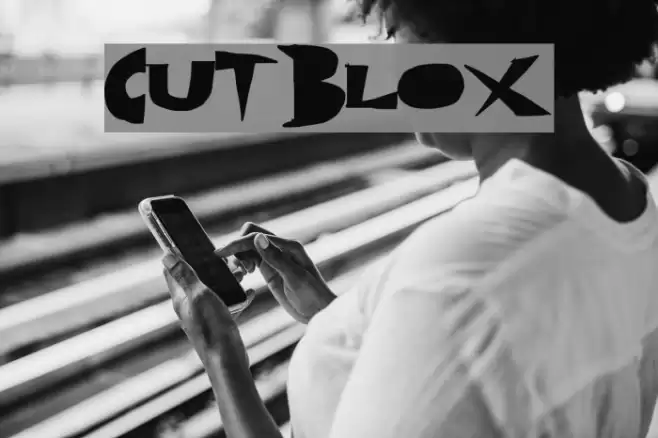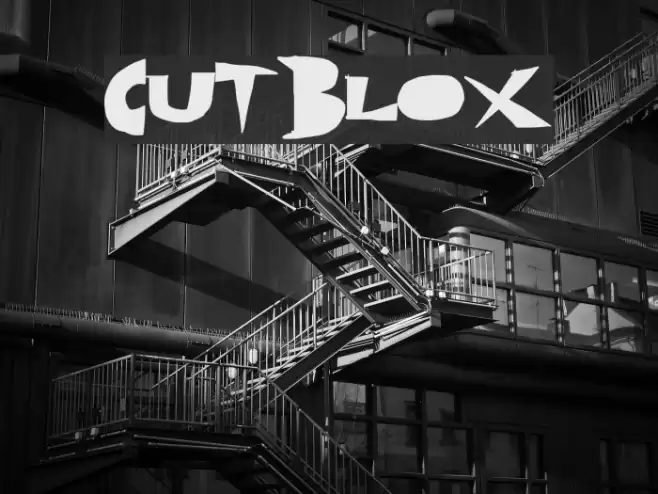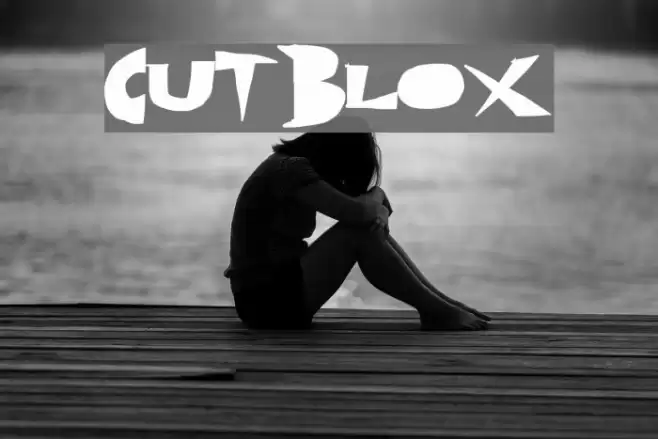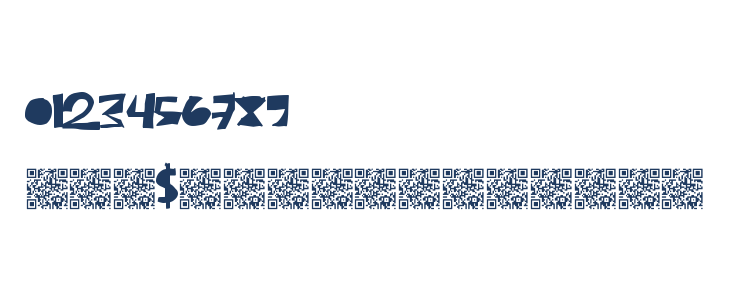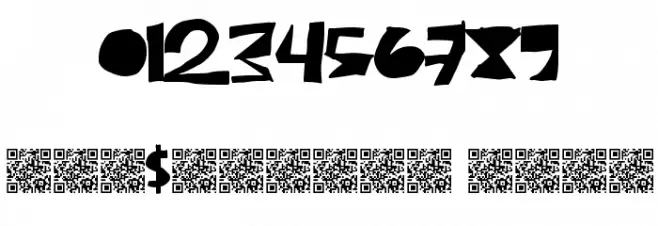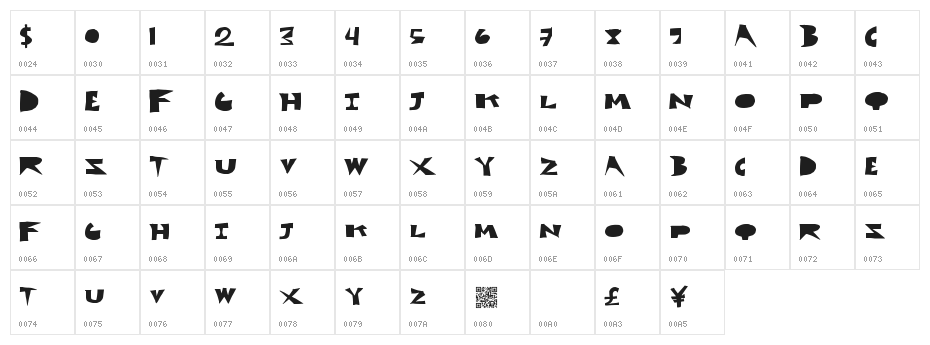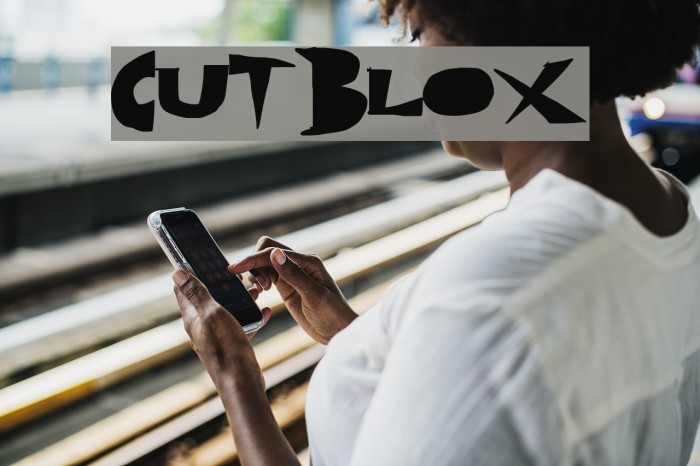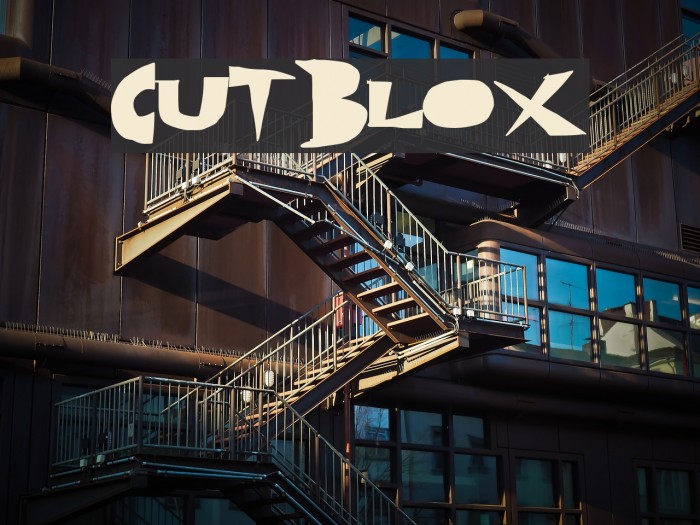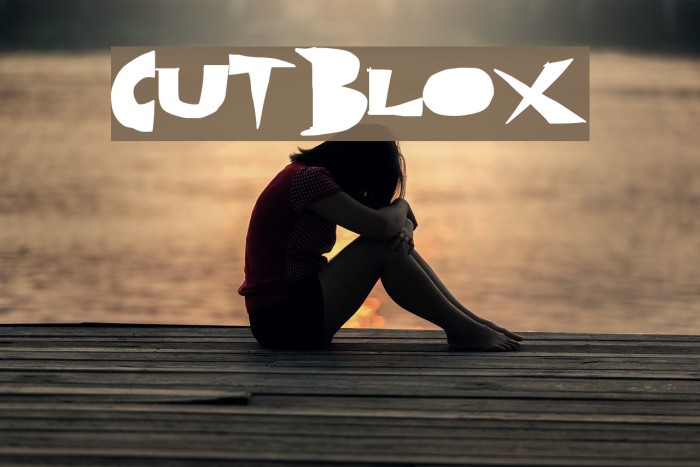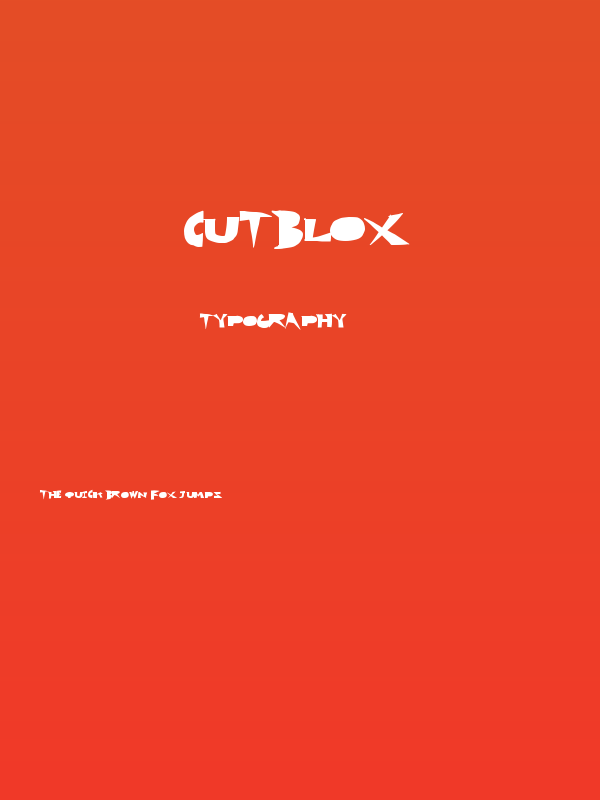
CutBlox Font
CutBlox Description
This font features a bold and dynamic style with sharp, angular edges and a geometric aesthetic. Each character is uniquely crafted with a sense of movement and energy, making it stand out with its distinctive cut-out appearance. The uppercase and lowercase letters maintain a consistent design theme, while the numerals and special characters complement the overall look. The font's boldness and unique style make it suitable for eye-catching designs that require a strong visual impact.
A bold, angular font with a geometric and dynamic style from Uncategorized fonts.
- Proposed Projects: Ideal for posters, album covers, video game titles, and branding projects that require a striking and modern look.